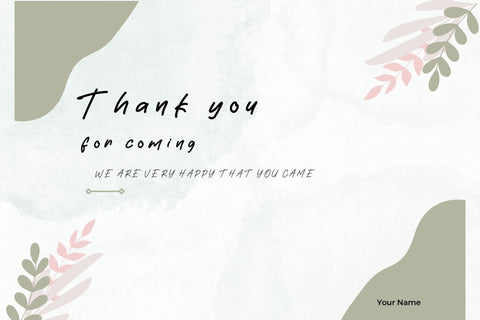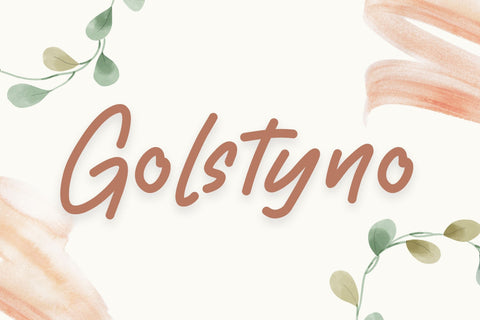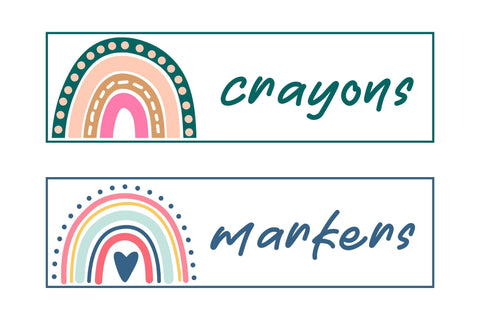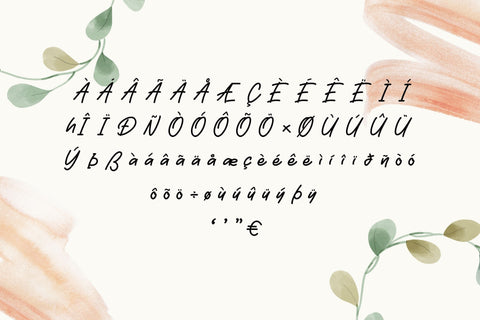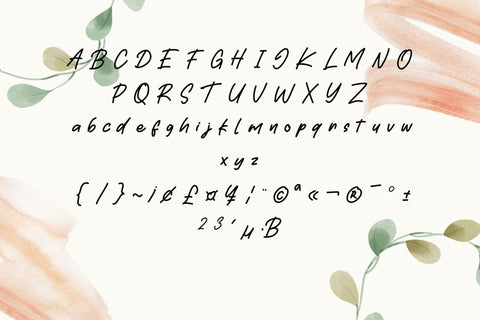
Golstyno Font
Golstyno is a simple and dainty handwritten font. Its natural and unique style makes it incredibly fitting to a large pool of designs. Use this font for your designs and explore its endless possibilities.